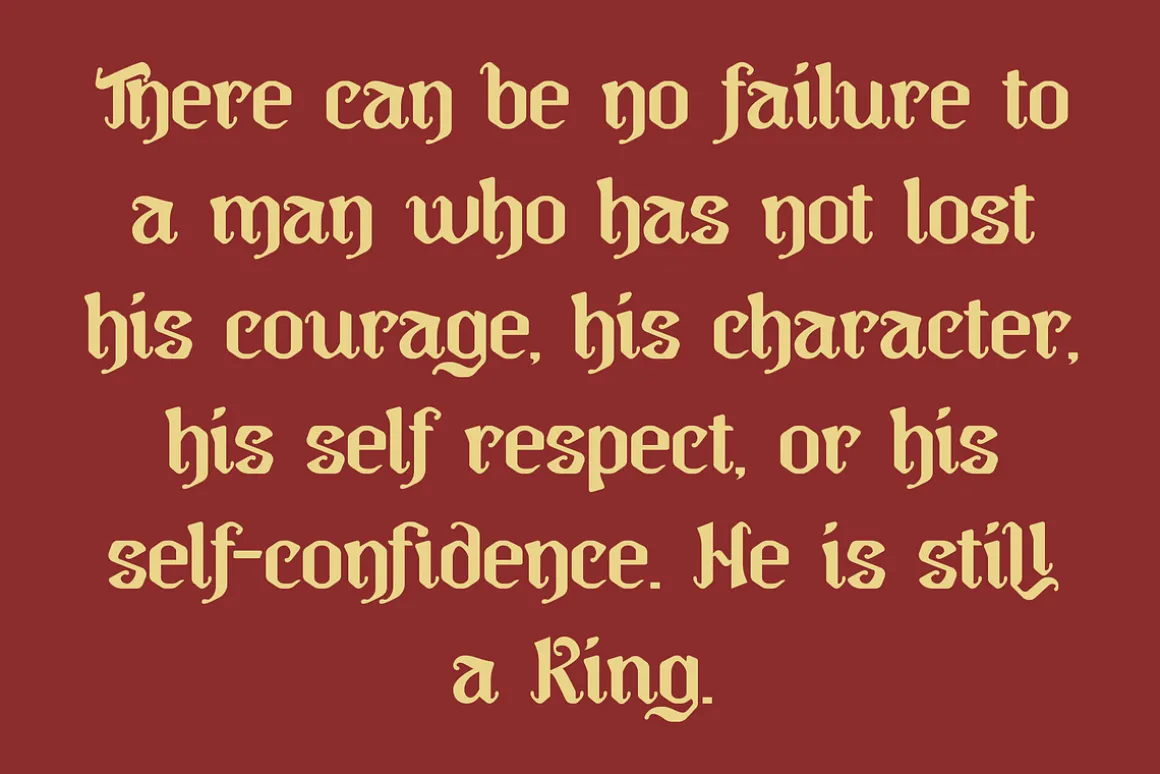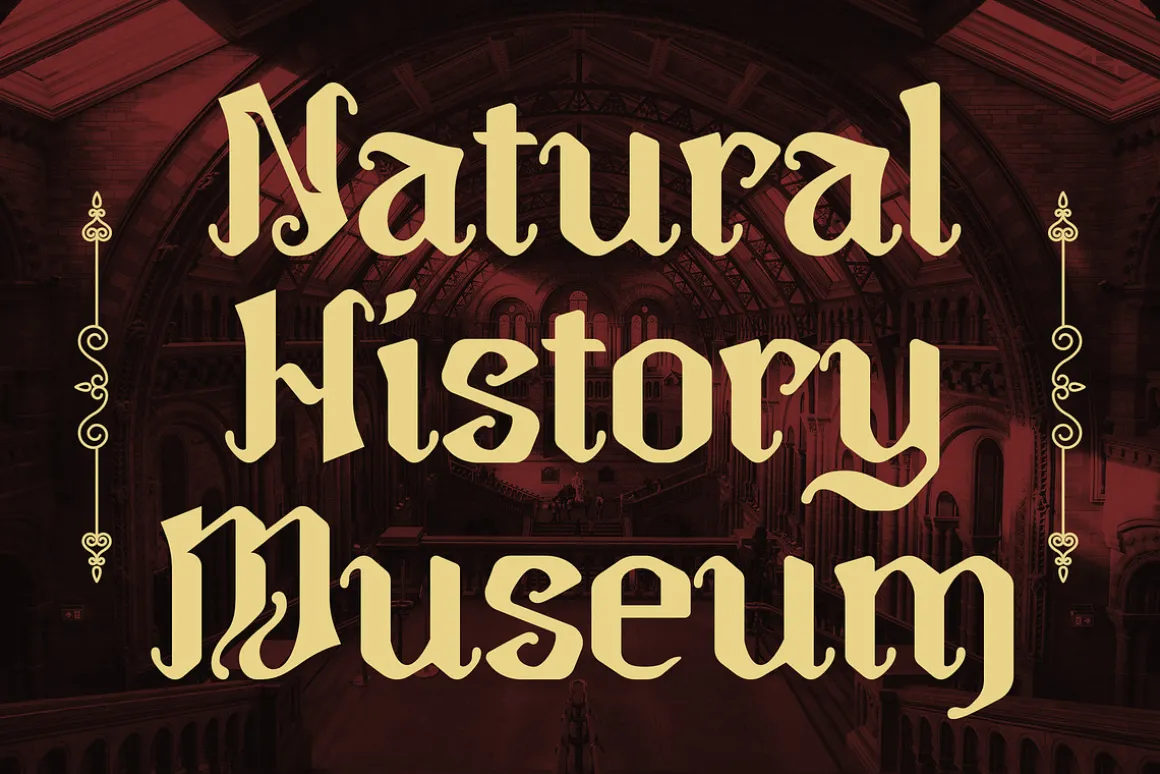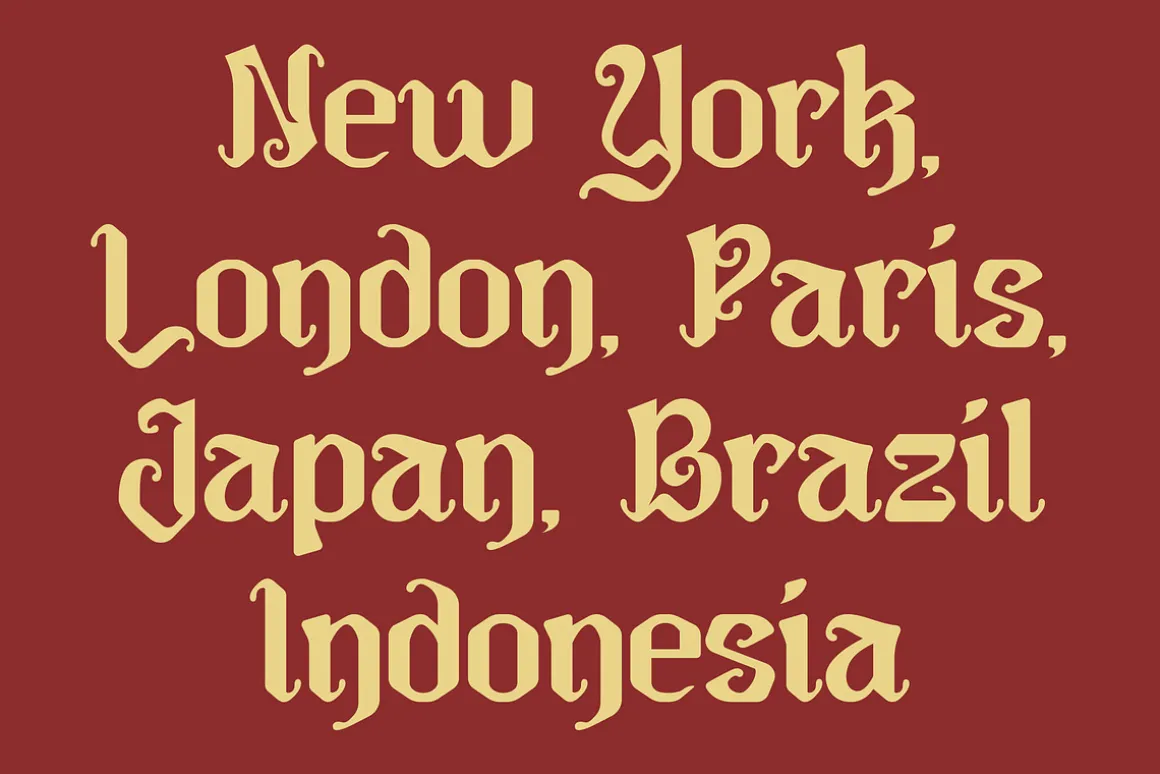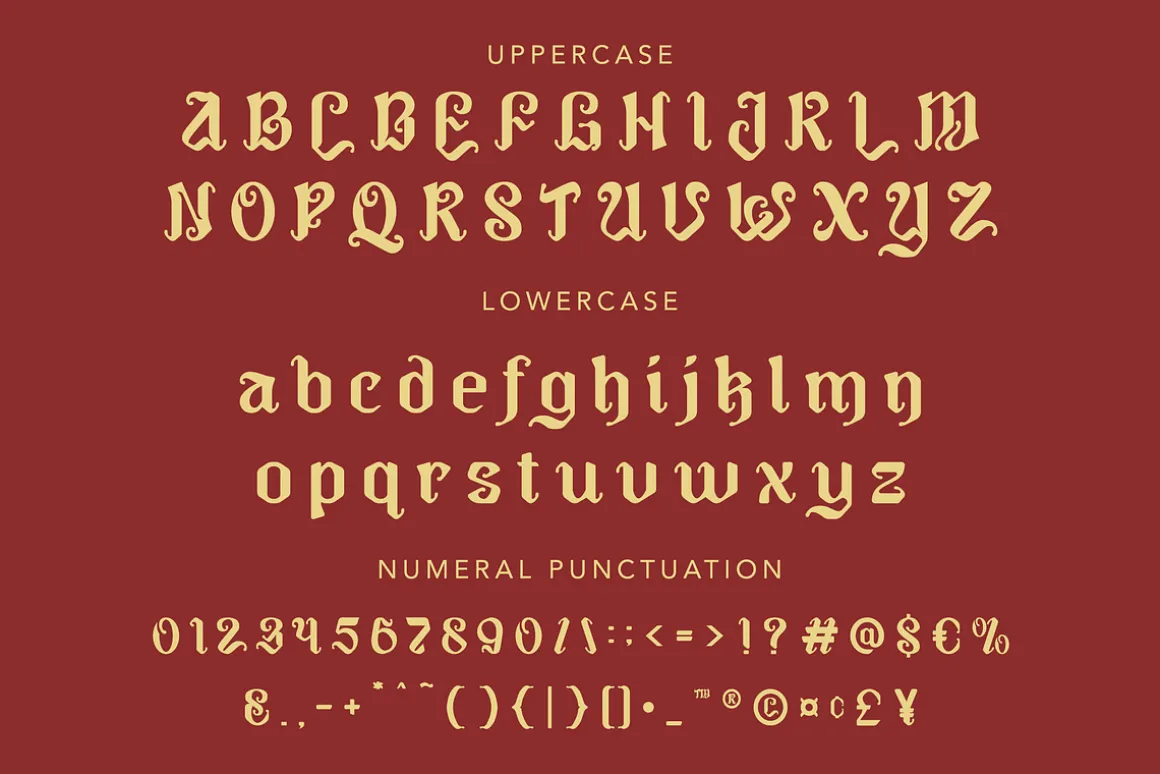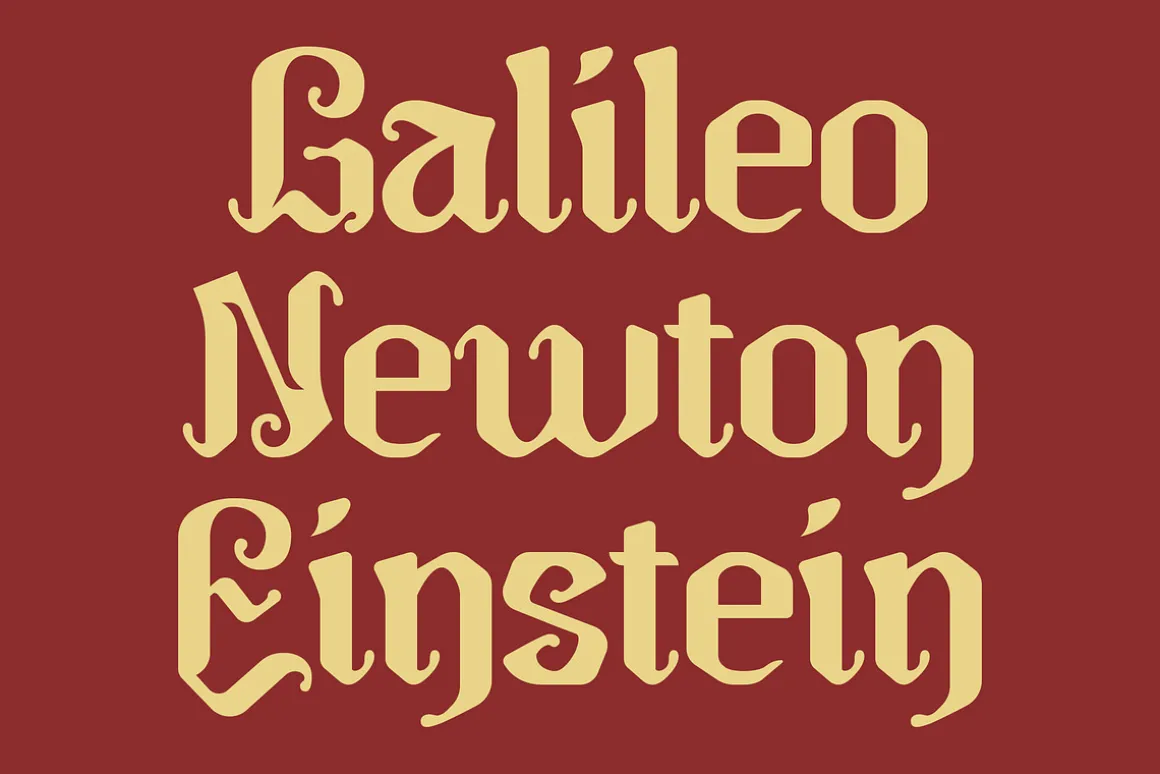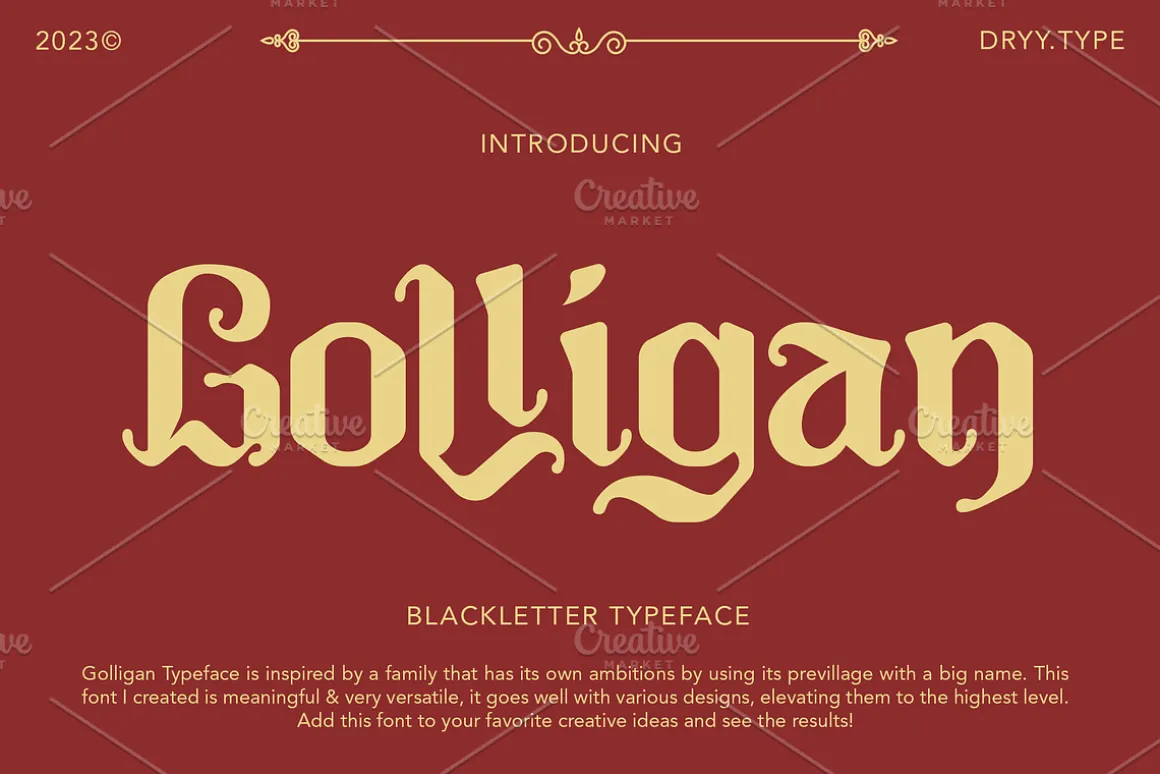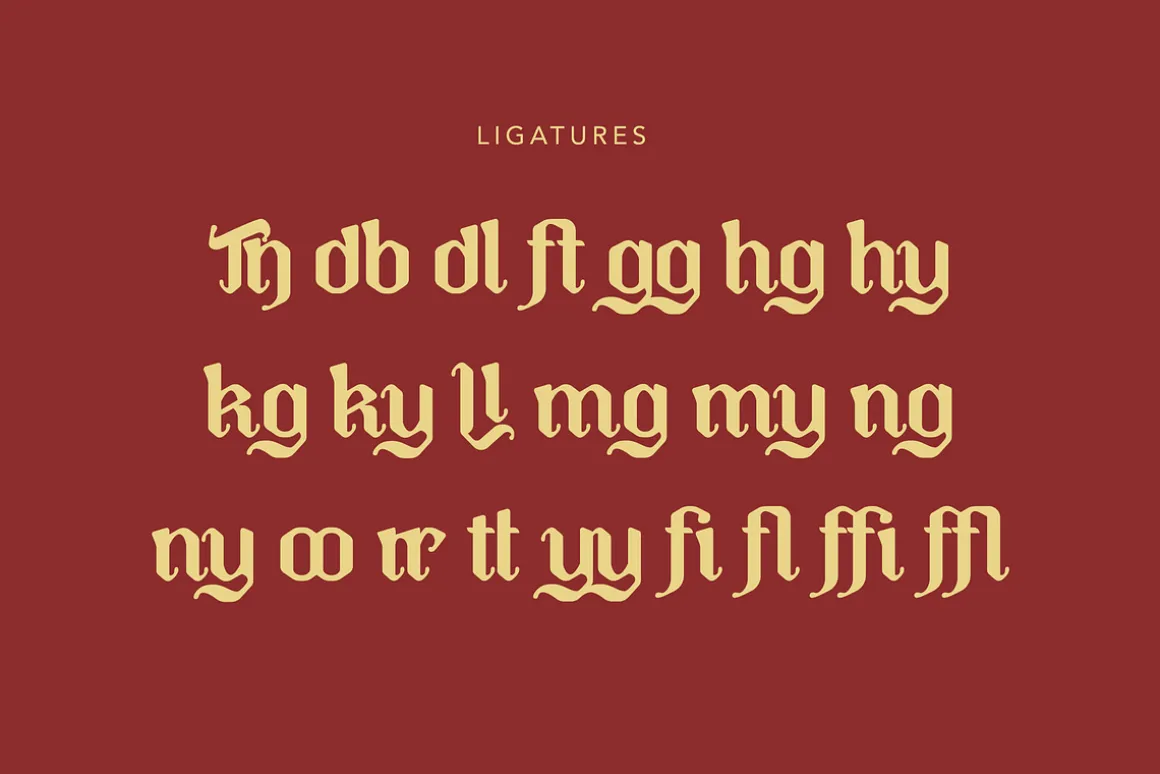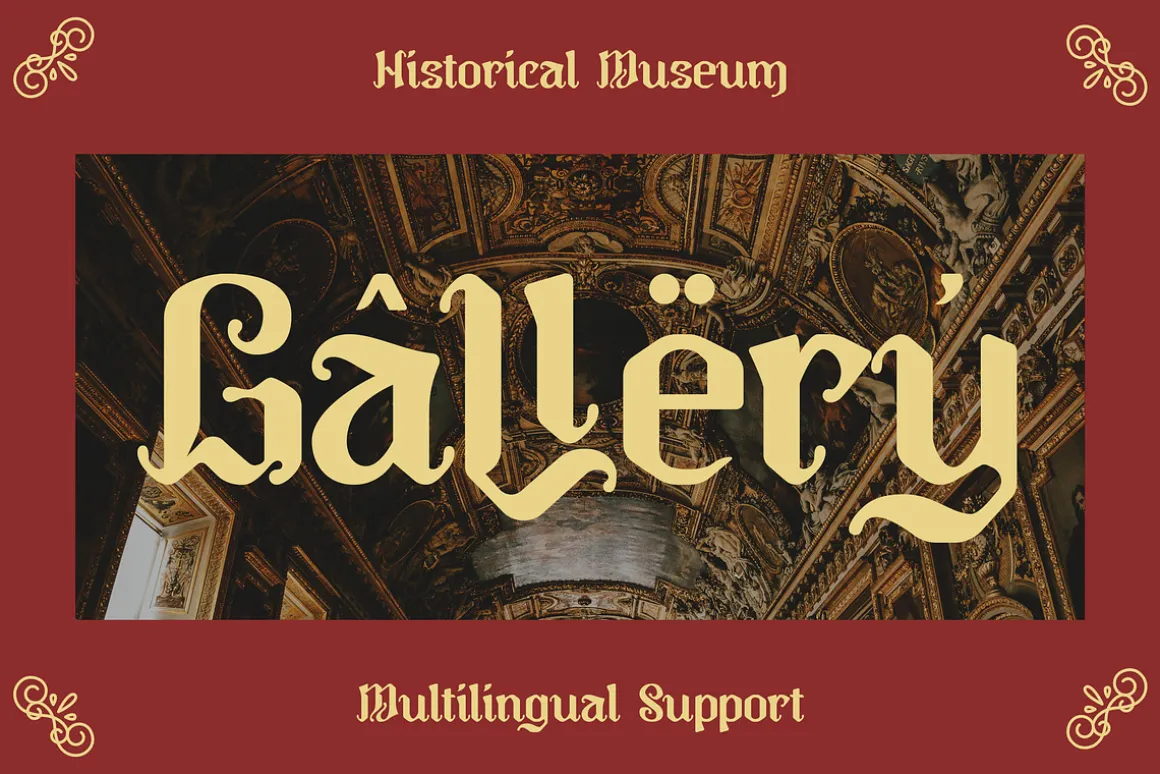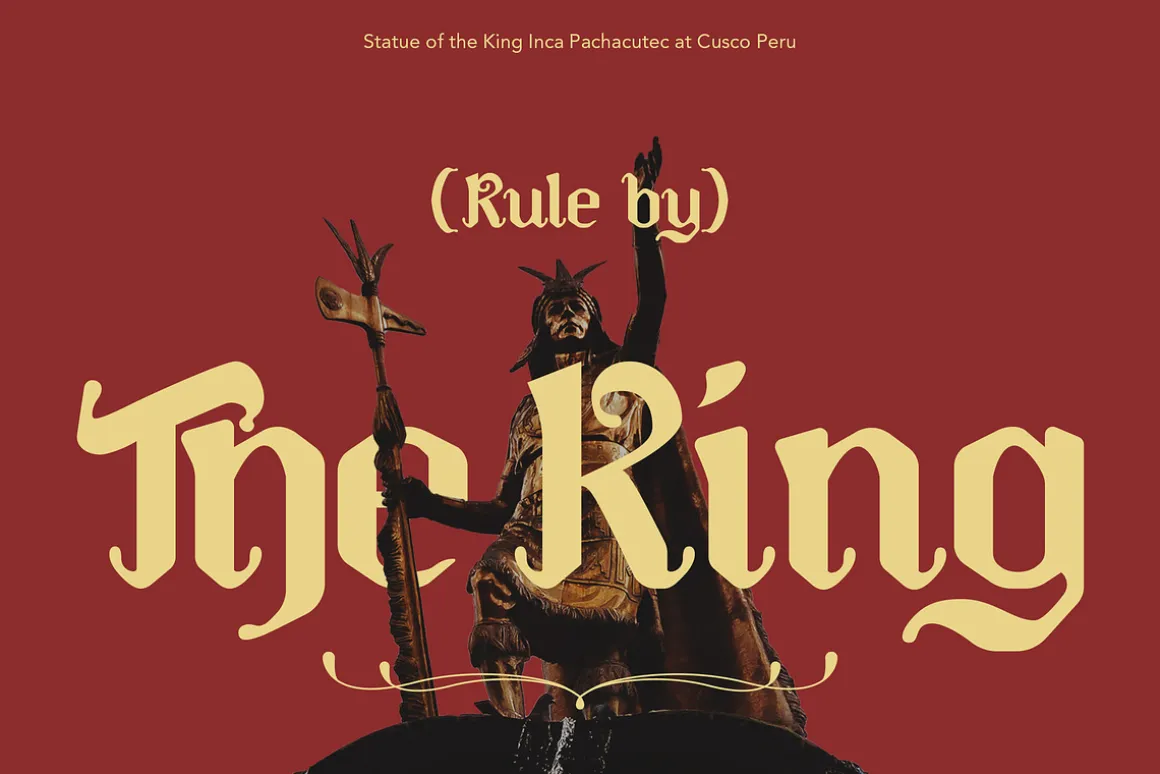
Golligan Typeface is inspired by a family that has its own ambitions by using its previllage with a big name. This font I created is meaningful & very versatile, it goes well with various designs, elevating them to the highest level. Add this font to your favorite creative ideas and see the results!
Features : Uppercase, Lowercase, Numeric, Ligatures & Multilingual SupportThere it is! I really hope you enjoy it!!